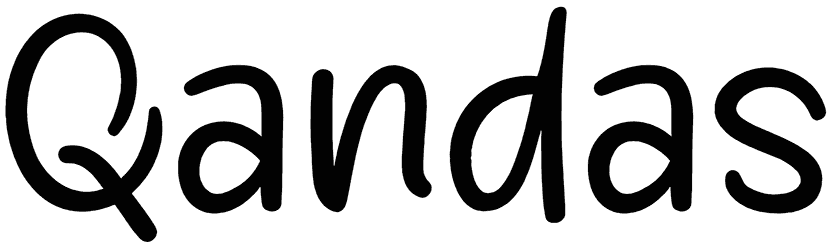
Qandas Font
There are countless designs that you can adorn their words with modern and casual letterforms like this option. The soft characters of this handwritten font are natural and cute. Qandas doesn’t support numbers, but with three weights, you can create different mixes and beautify your layouts like a birthday party invitation card.